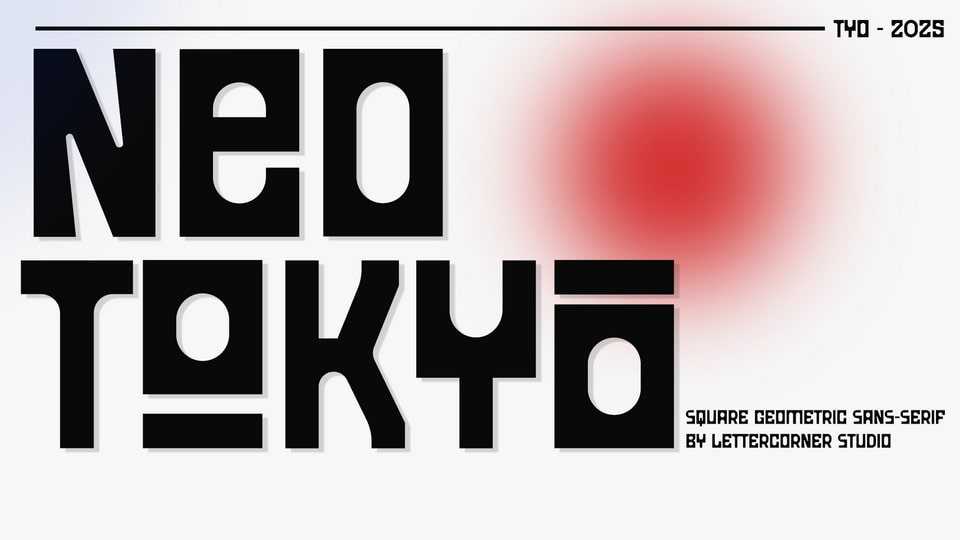
Download Neotokyo font, a display typeface inspired by the bold, structural silhouette of a standing poster holder. Each letter blends rigid geometric forms with the clean rhythm.
Designer: Lettercorner Studio